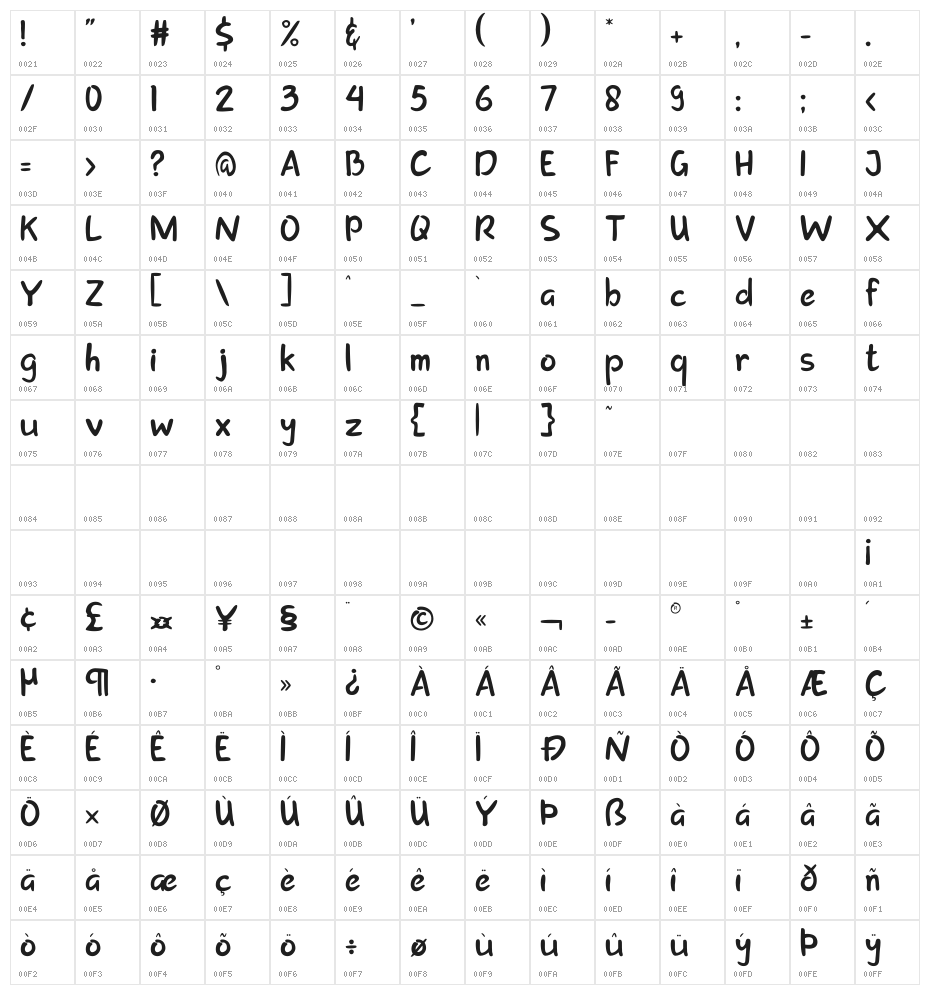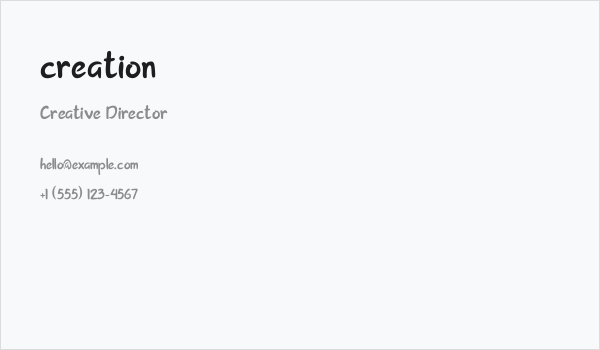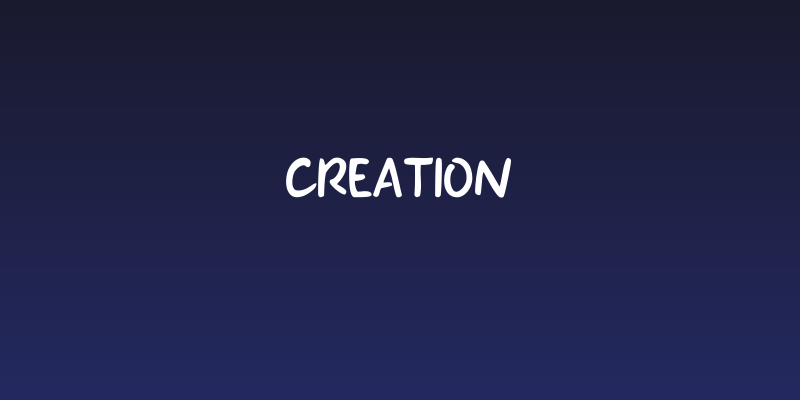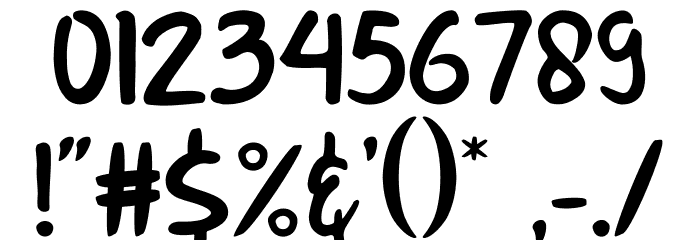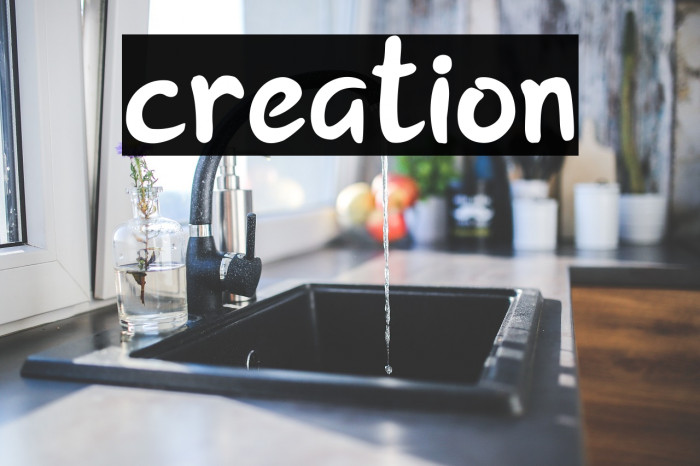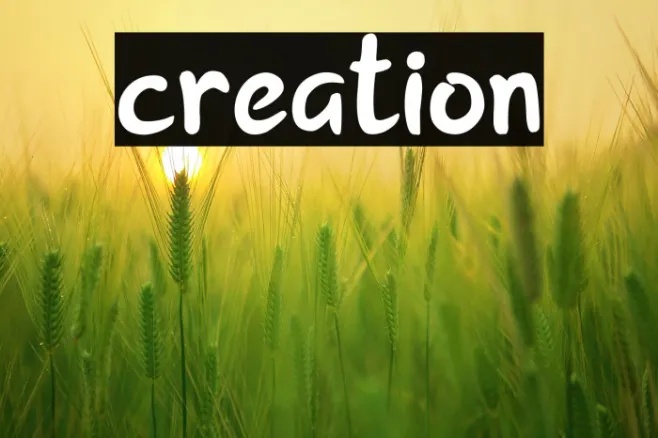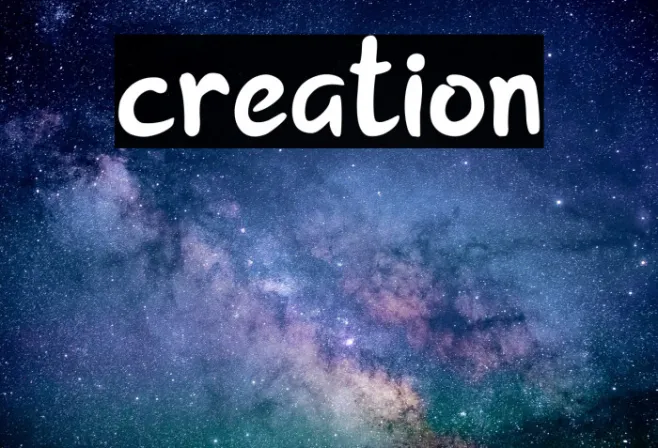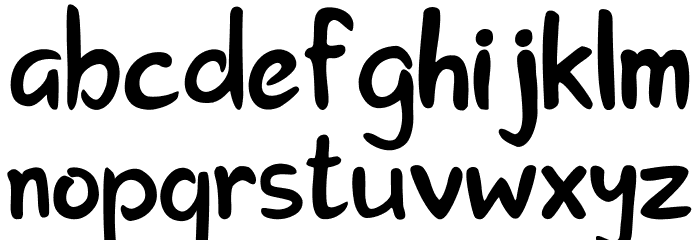
creation Font
creation Description
This font features a playful and bold handwritten style, characterized by its rounded and slightly irregular letterforms. The uppercase letters are consistent in height, while the lowercase letters maintain a casual, friendly appearance. The numbers and special characters follow the same playful aesthetic, making the font versatile for various creative projects. The strokes are thick, providing a strong visual impact, yet the overall design remains approachable and informal. This font is ideal for projects that require a personal touch or a fun, lively vibe.
| Overall Style | Playful, Informal |
| Proposed Projects | Great for children's books, greeting cards, posters, and playful branding. |